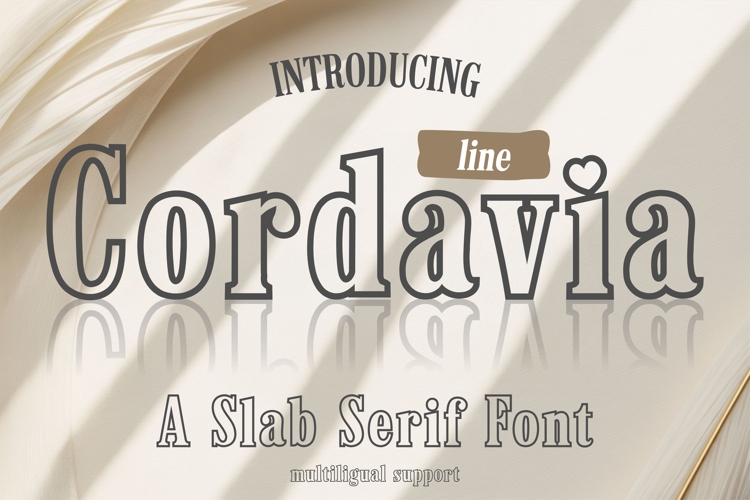
Cordavia Line is a charming slab serif outline font with a sweet and expressive twist. Designed for creators who want boldness with a playful heart, Cordavia Line features clean lines, classic slab serifs, and adorable heart details that make your designs stand out.
Ideal for quotes, apparel, branding, packaging, logos, or anything that needs a bit of personality, this font blends retro appeal with modern versatility. Whether you're crafting in Canva, Cricut, Procreate, or Silhouette, Cordavia Line delivers clarity and charm in every curve.
Cordavia Line